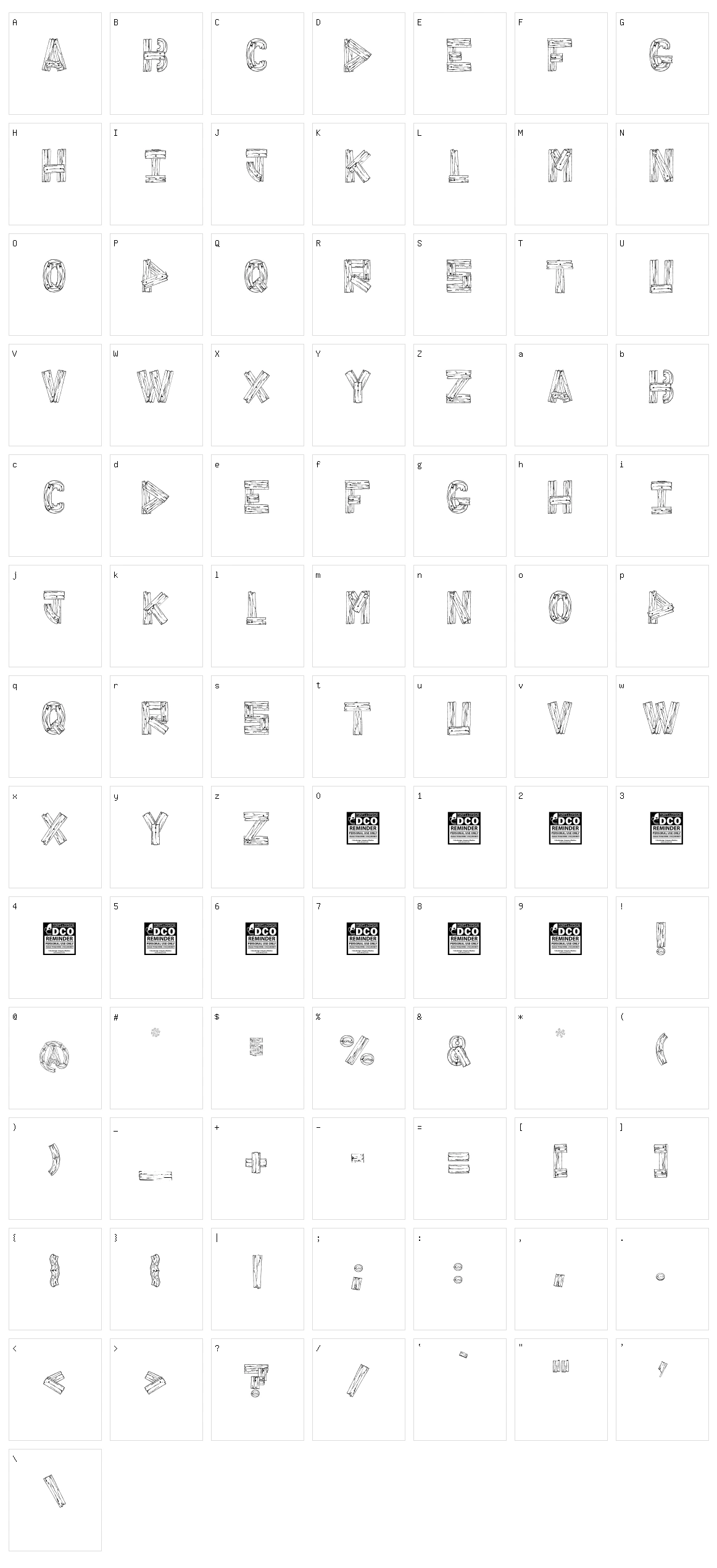
The free font Chestnut Splinters is carefully designed by dcoxy - Greg Medina, showcasing a thoughtful balance of creativity and usability and falls under the Western font style. When you download the ZIP file, it contains only 333.45 KB of font files, making it lightweight and quick to download. Please review the license details below to understand permitted usage and distribution rights. If license information is not available, we recommend using this font for personal projects only or contacting the author directly for commercial usage permissions.